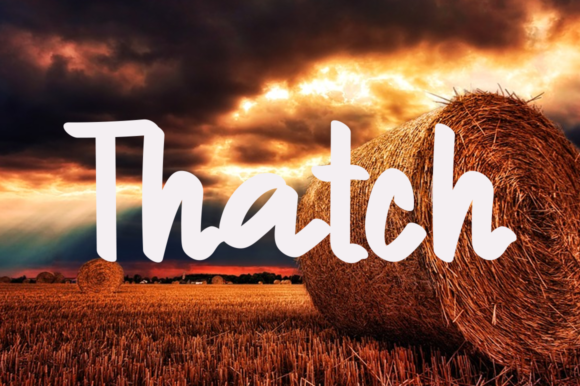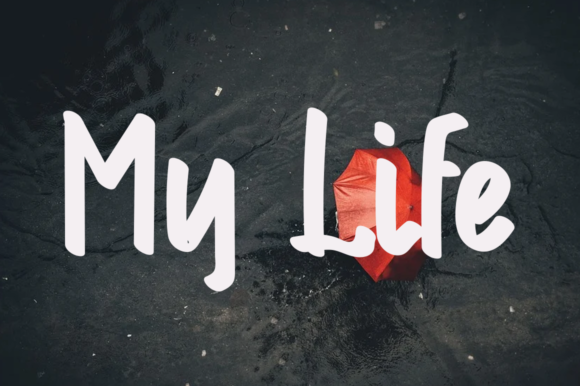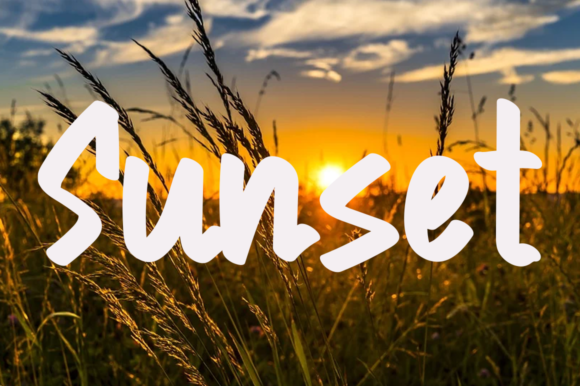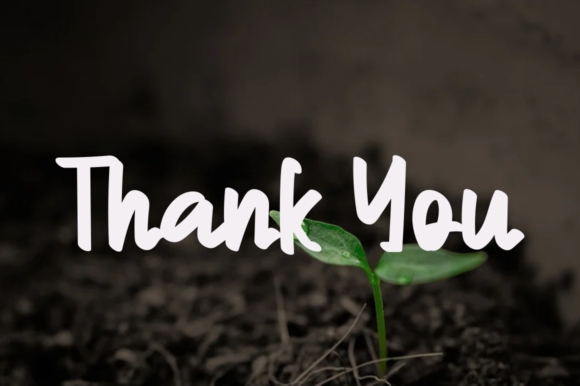
Summer Camp Font
About Summer Camp Font
Summer camp is a dainty, original, and cursive handwritten font. With friendly characters that seem to dance along the baseline, this typeface will be a wonderful asset to your fonts library!